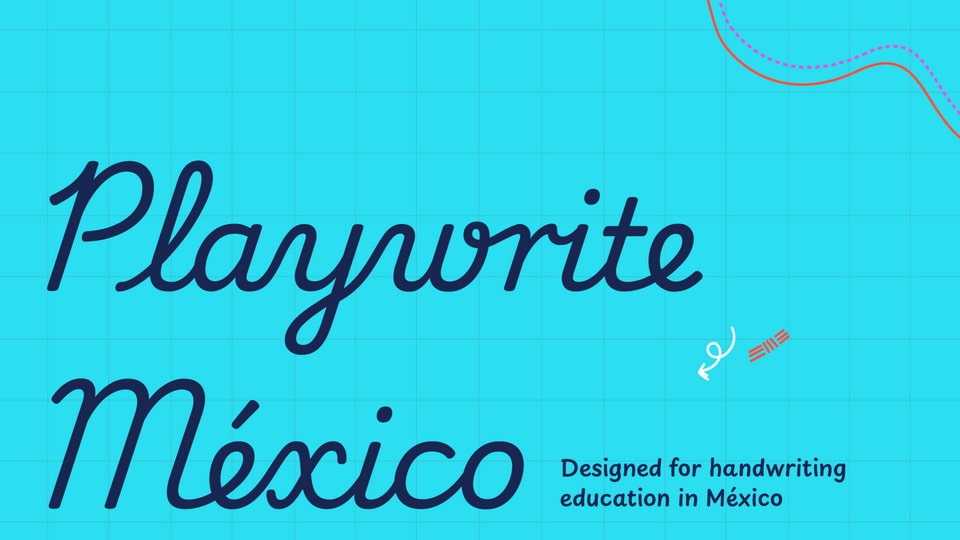
Download Playwrite México font, a typeface that allows the creation of primary school cursive fonts. This slanted continuous cursive closely mirrors North American models such as Palmer or Zaner-Bloser.
Designer: TypeTogether